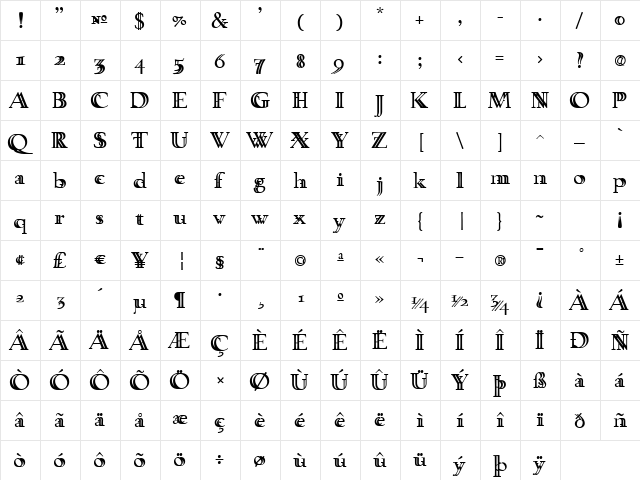
TaskDouble Regular
Design Context for TaskDouble Typeface
TaskDouble is a composed and adaptable typeface that performs quietly and consistently across a wide range of design contexts.